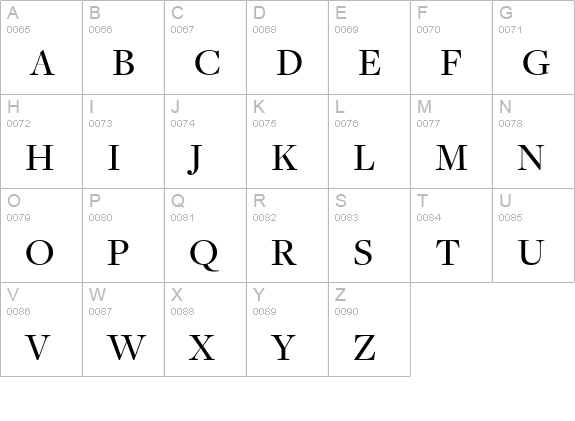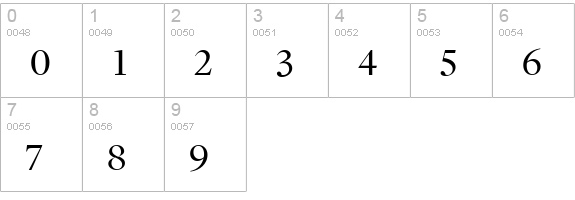
FreightDispMediumSC Font Details
FreightDispMediumSC font is a versatile and modern typeface that is ideal for various design projects. With its clean lines and balanced proportions, this font exudes professionalism and readability. The medium weight adds just the right amount of emphasis without being overwhelming, making it perfect for headlines, titles, and other display purposes. What sets FreightDispMediumSC font apart is that it is available for free download at FontsMarket.com. This means that you can easily access this high-quality font without any cost, making it a valuable addition to your font collection. Whether you are designing a website, creating marketing materials, or working on a branding project, FreightDispMediumSC font is a reliable choice that will elevate your designs to the next level.